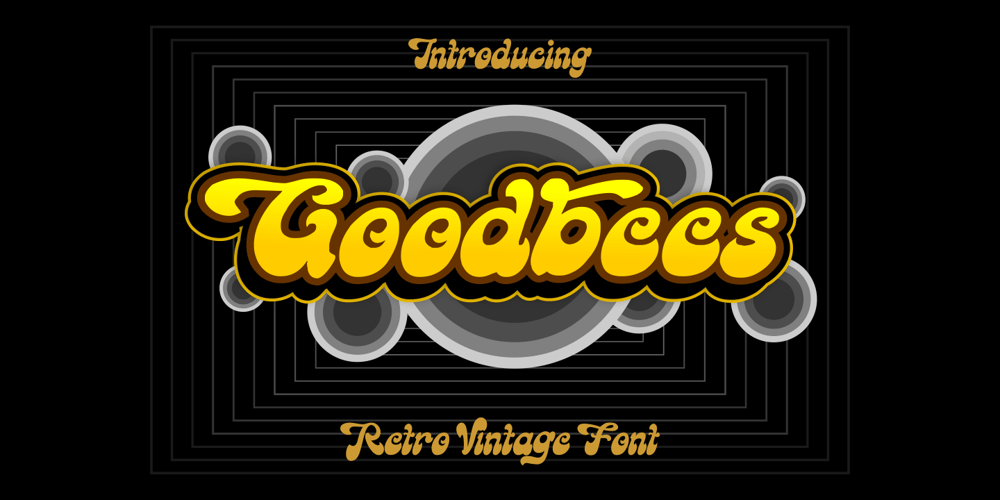
Goodbees
Goodbees font
Goodbees Font Family was designed by Ahmad Zulfikar Ali and published by ZetDesign. Goodbees contains 1 styles and family package options. Goodbees is built from a bold base, unique combinations, smooth curves, and sharp edges. Goodbees is best uses for headings, Logo types, quotes, apparel design, invitations, flyers, posters, greeting cards, product packaging, book covers, printed quotes, album covers, movies and more.